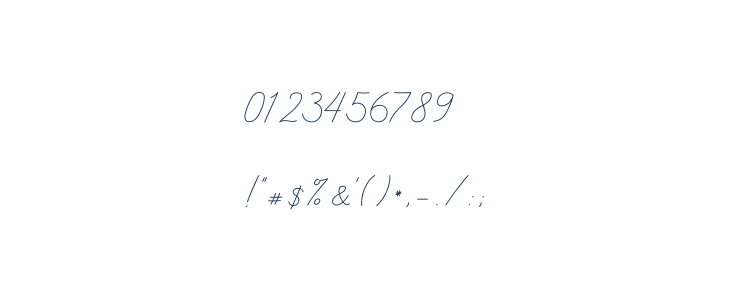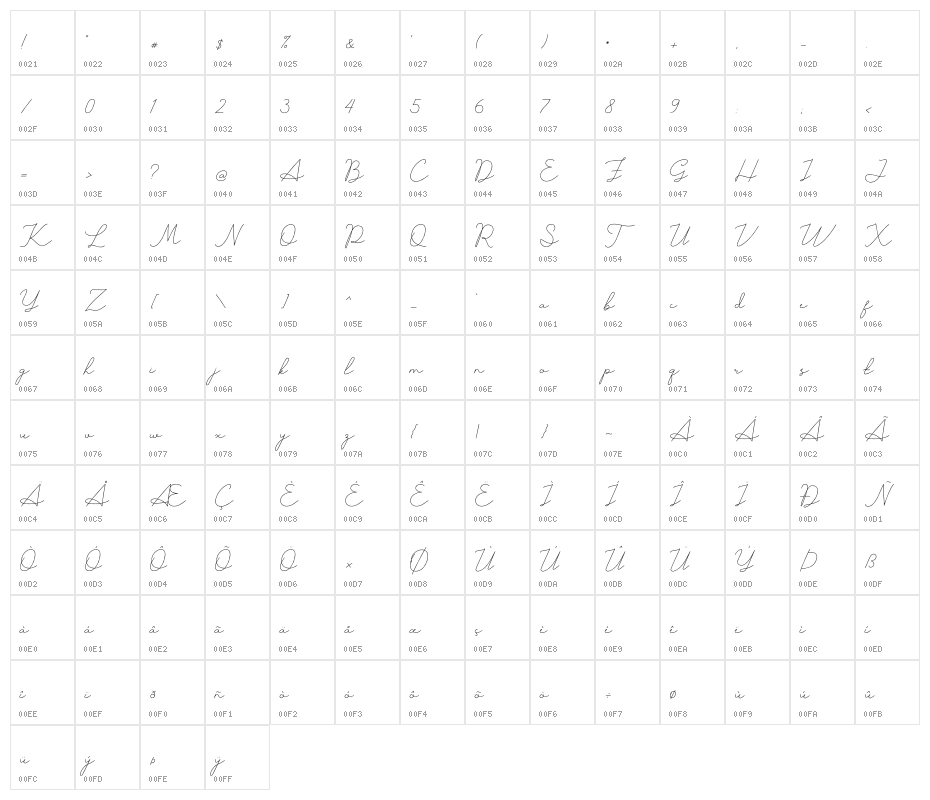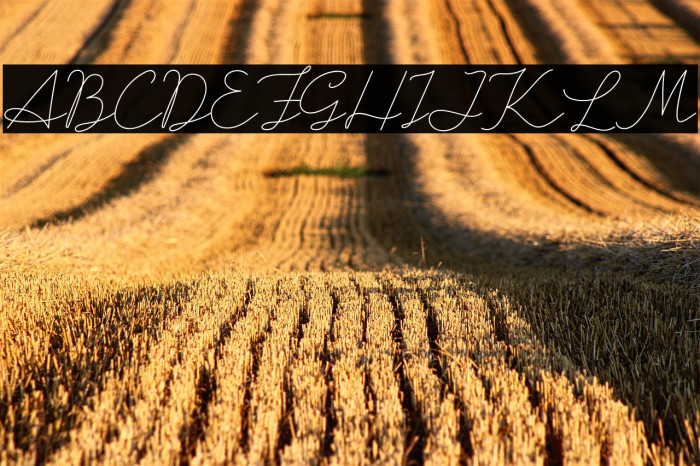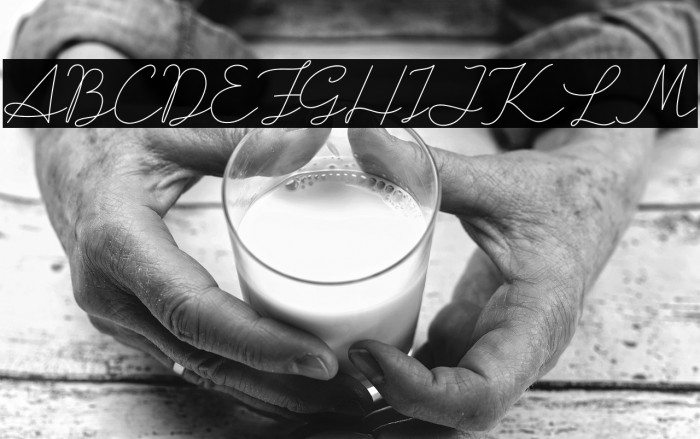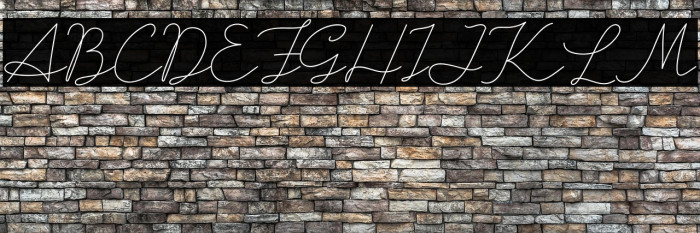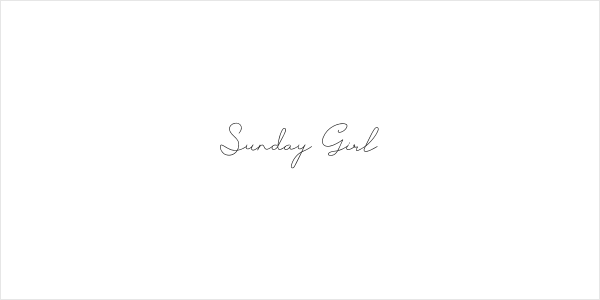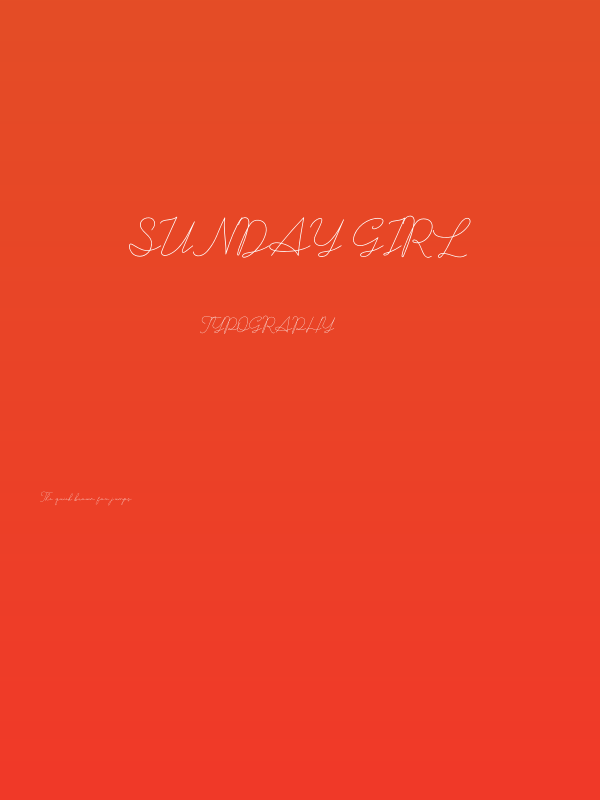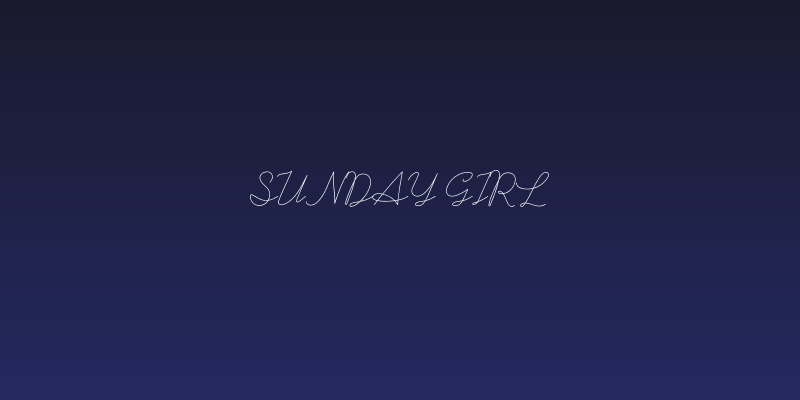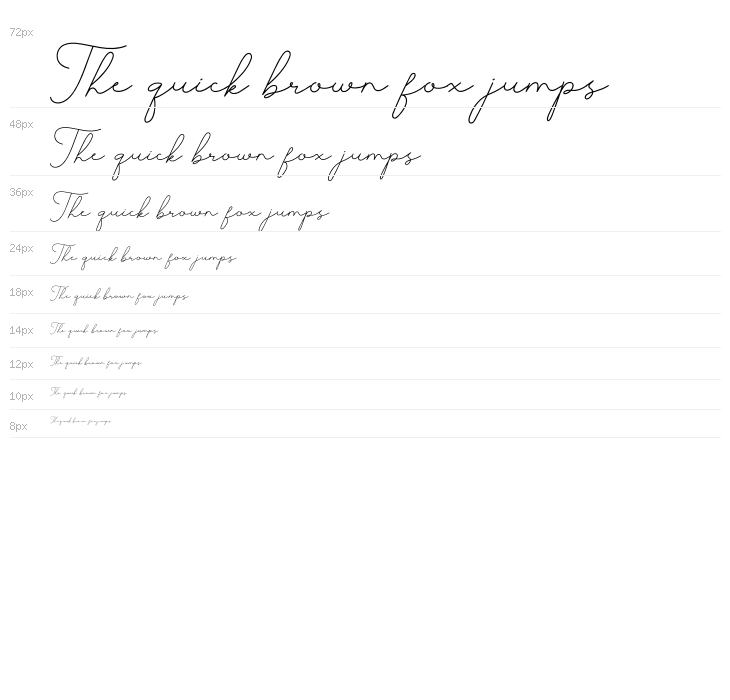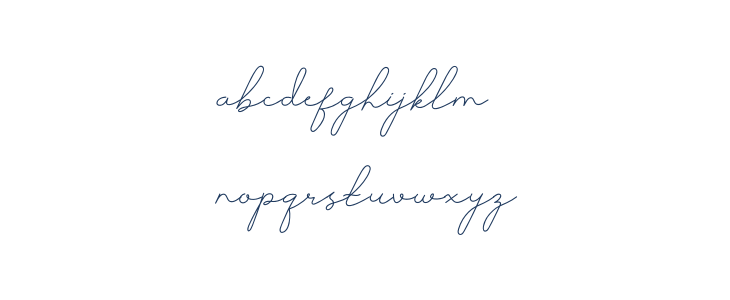
Sunday Girl Font
Sunday Girl Description
This elegant script font features a flowing, cursive style with delicate, thin strokes that give it a graceful and sophisticated appearance. The characters are interconnected, creating a seamless and fluid look, reminiscent of traditional calligraphy. The uppercase letters are slightly larger and more ornate, while the lowercase letters maintain a consistent and harmonious flow. The numerals and special characters are designed to match the overall aesthetic, ensuring a cohesive appearance across all text. This font is perfect for projects that require a touch of elegance and refinement.
| Proposed Projects | Ideal for wedding invitations, elegant branding, personal stationery, and decorative quotes. |